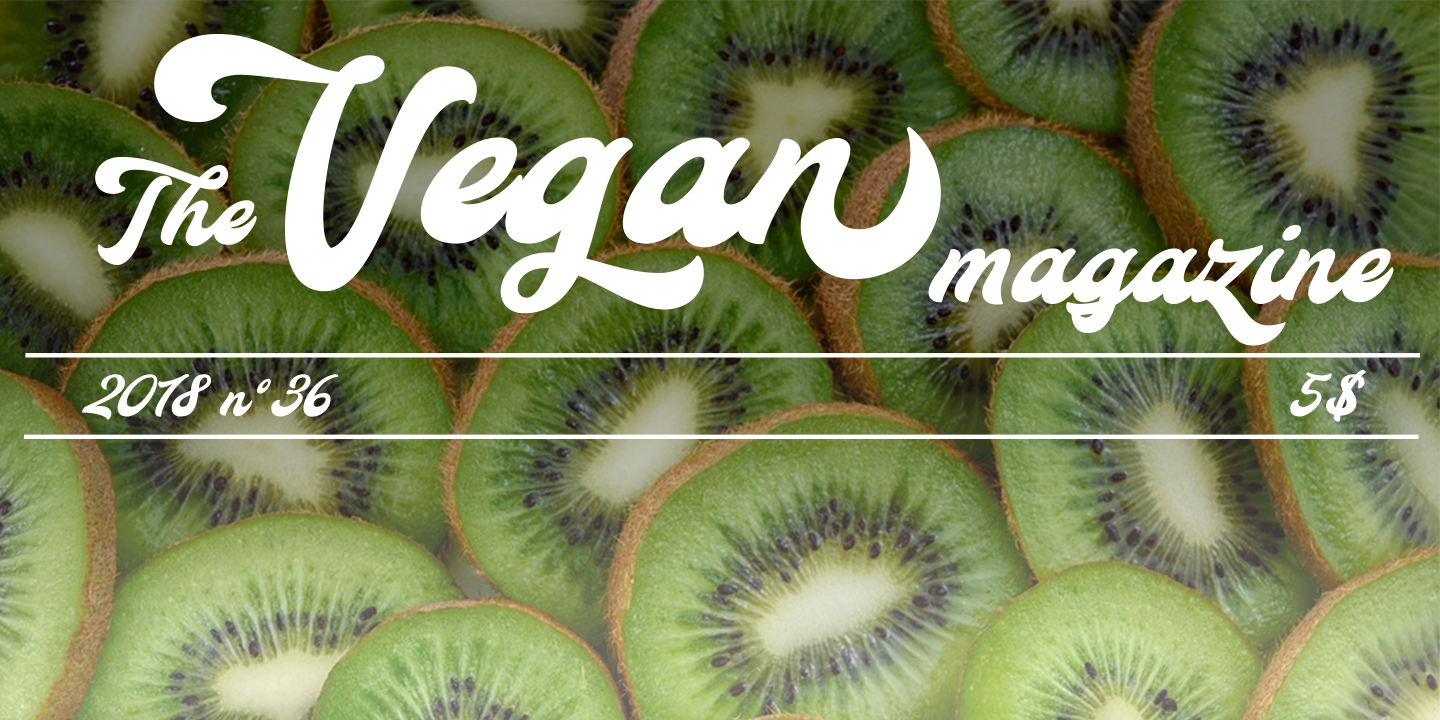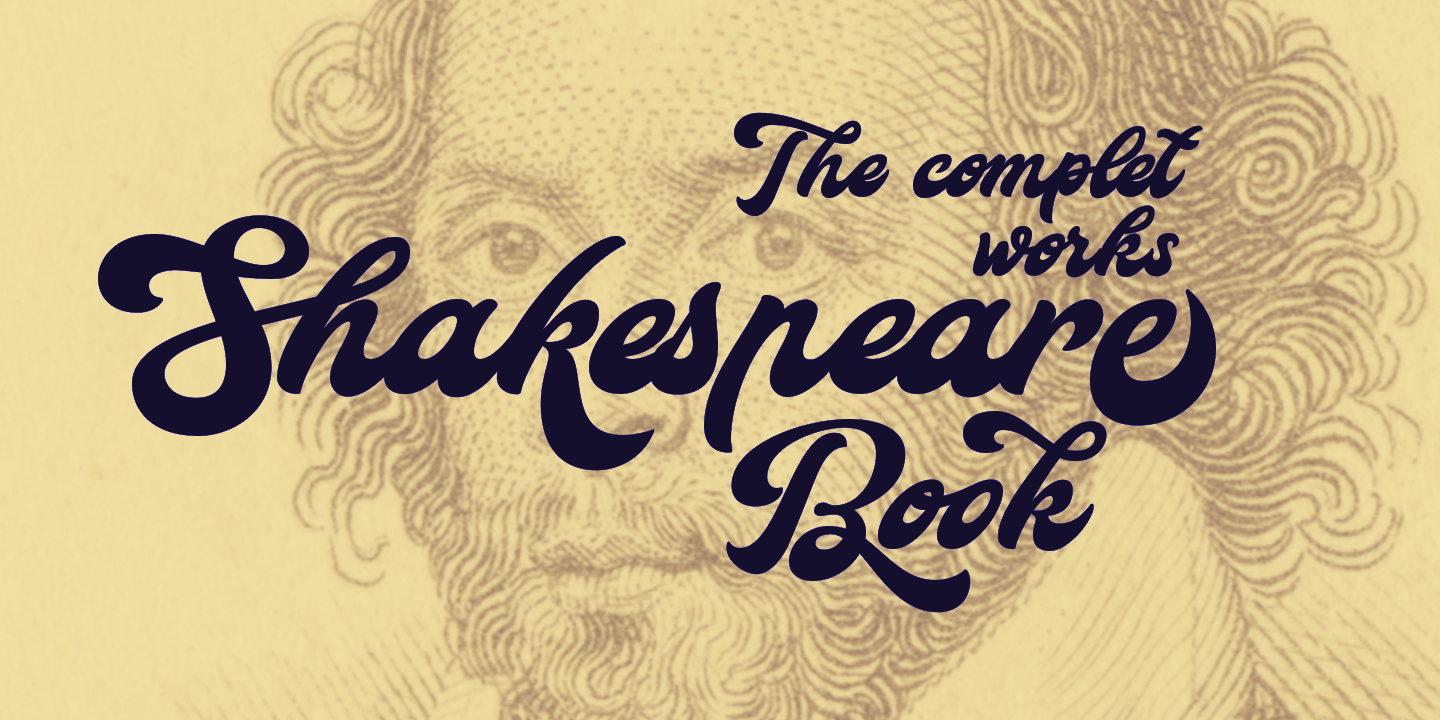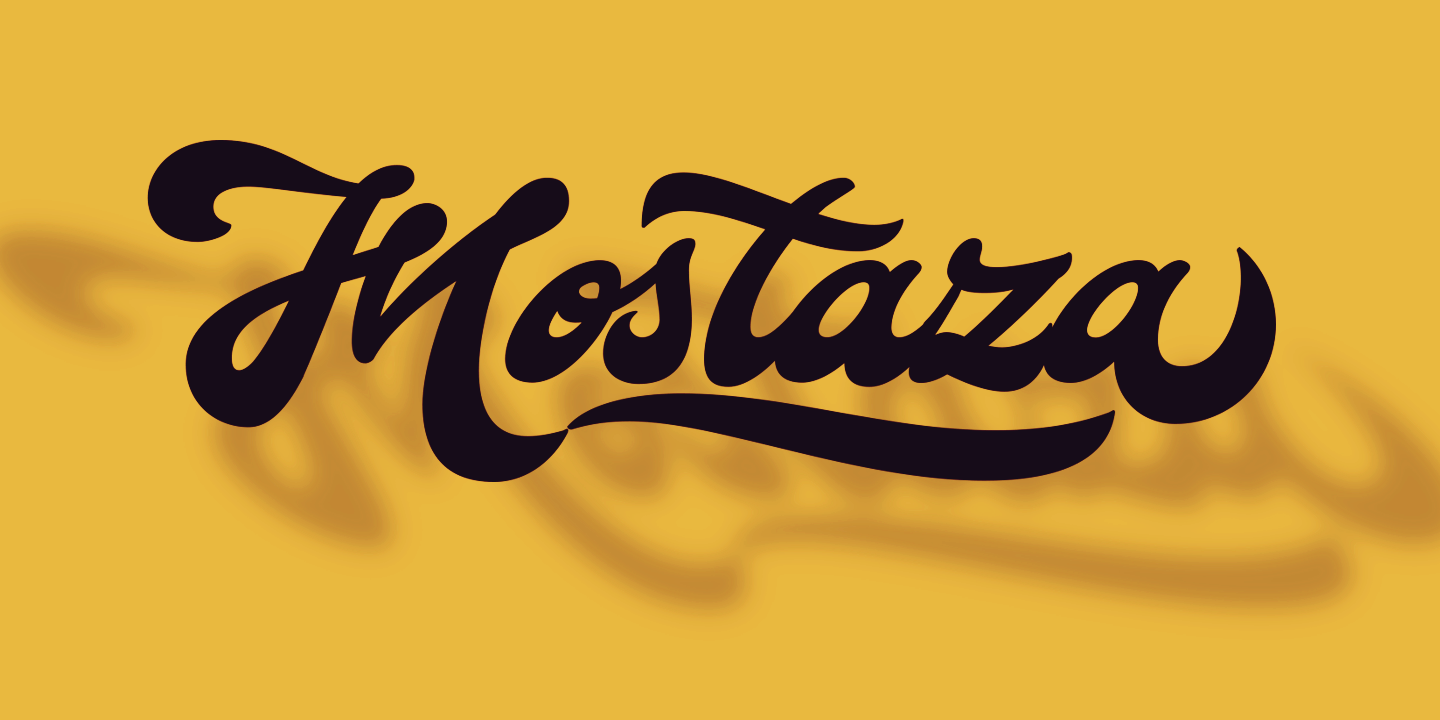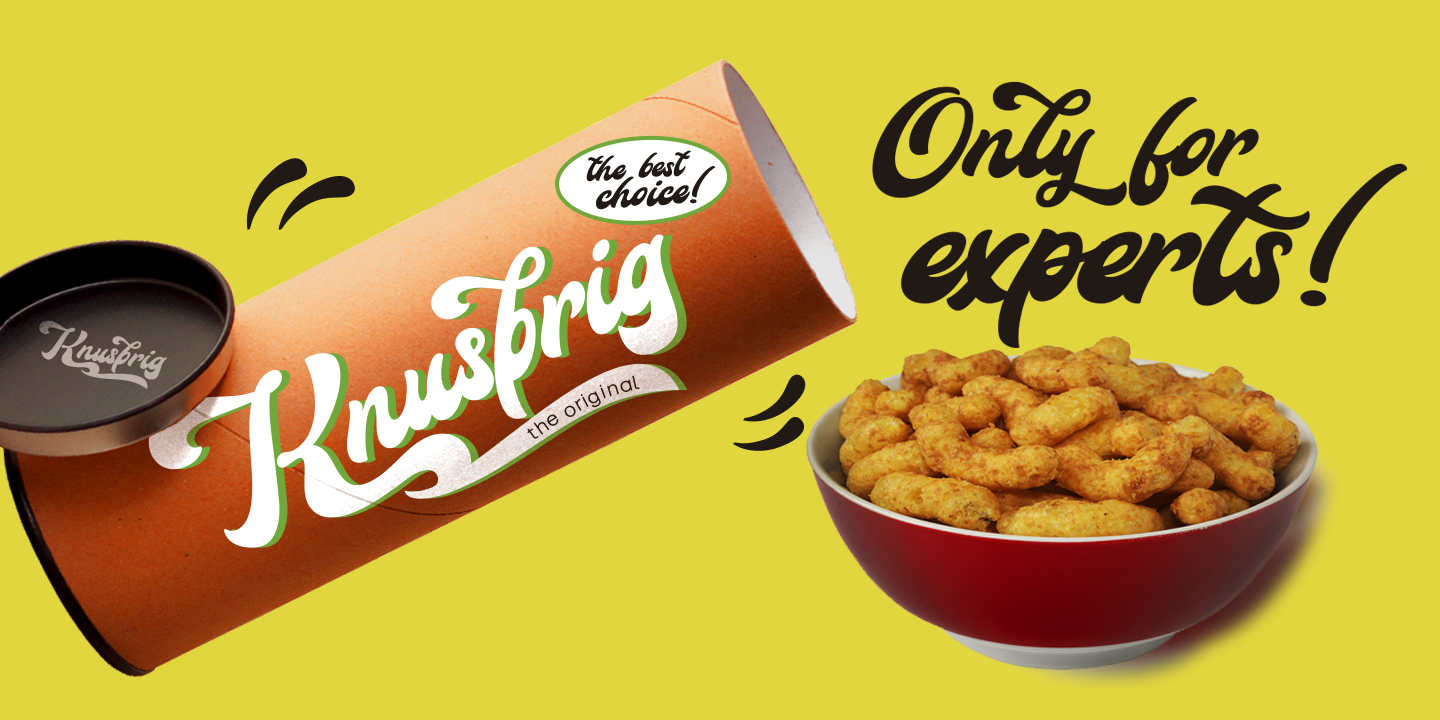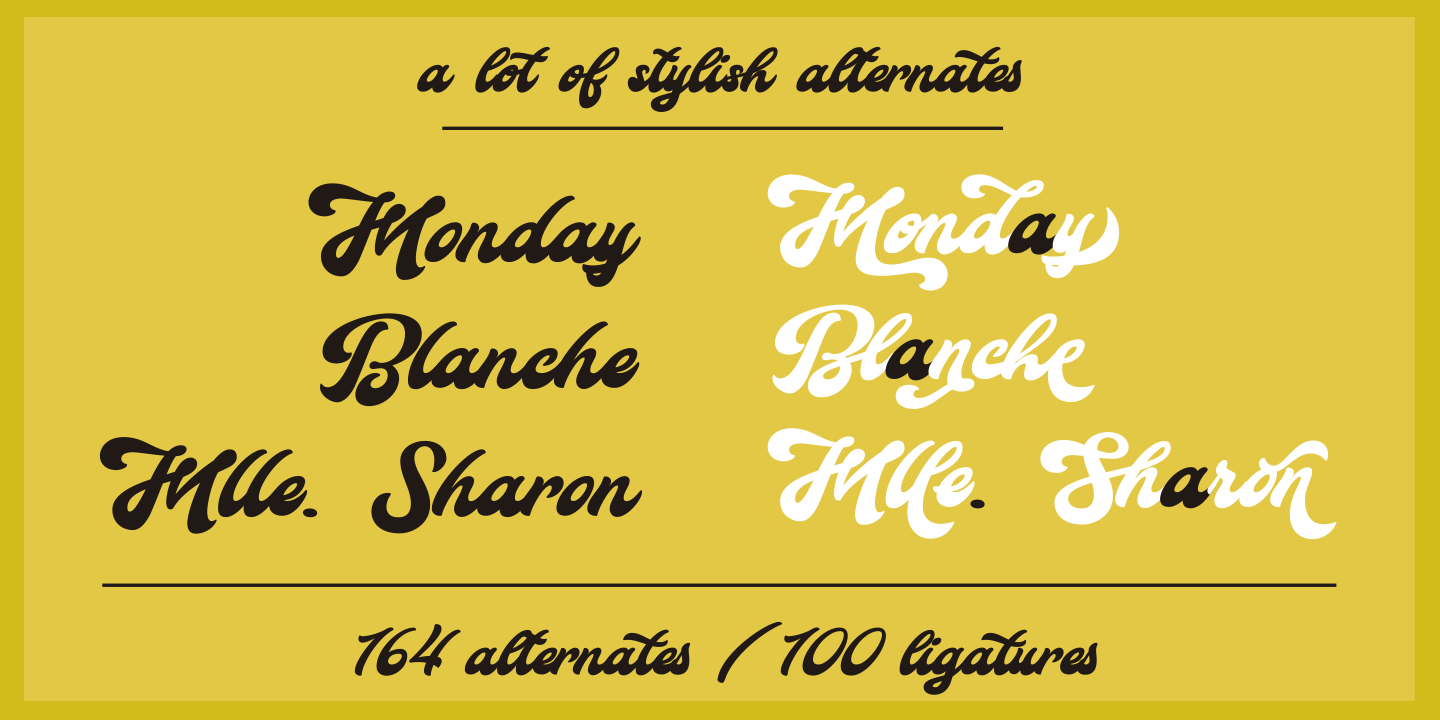
Mostaza
DESIGNED BY
Carine de Wandeleer
YEAR OF ISSUE
2019
An Expressive Organic Lettering Font
Mostaza is an organic and expressive lettering font designed to bring warmth, movement, and personality to your typography. Inspired by hand-drawn lettering, it delivers a lively, bouncy rhythm that feels natural and full of character—perfect for projects that need to stand out with a friendly yet confident voice.
Rich OpenType Features & Ligatures
One of Mostaza’s greatest strengths lies in its rich OpenType feature set. The font includes 164 stylistic alternates, available for both lowercase and uppercase letters, along with 100 carefully crafted ligatures. These features introduce natural variation and fluid connections, ensuring your text looks dynamic and authentic, without the visual repetition often found in decorative fonts.
Custom Ornaments & Calligraphic Touch
To further expand its creative potential, Mostaza also comes with a selection of custom ornaments designed to complement the letterforms. Some of these elements are specifically created to combine seamlessly with the characters, adding a more calligraphic and expressive touch. All ornaments are easily accessible through the glyphs palette, allowing designers to experiment freely and enhance compositions with minimal effort.
Perfect for Packaging & Lifestyle Branding
Thanks to its bold personality and versatility, Mostaza works beautifully for titles, logos, branding and packaging, posters, invitations, greeting cards, magazines, book covers, children’s content, fashion design, and many other creative applications. Wherever you want to add energy, charm, and handcrafted appeal, Mostaza delivers a distinctive and engaging typographic solution.